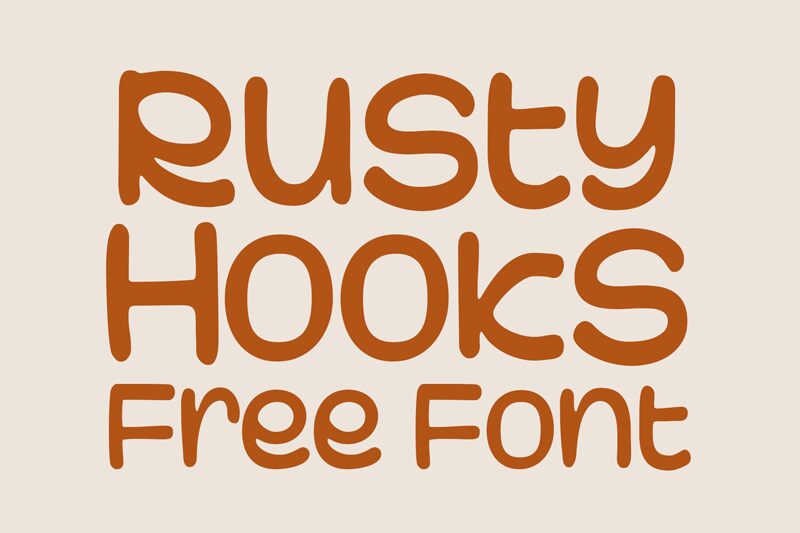
Rusty Hooks Regular
Rusty Hooks, crafted by the imaginative Niskala Huruf, is a semi-expanded display font that exudes charm and personality with its whimsical handwritten style. This playful typeface stands out with its delightful quirks, making it a perfect choice for designers looking to inject a touch of lightheartedness into their creative projects.
Whether it's for eye-catching branding, engaging advertising, or memorable packaging, Rusty Hooks adds a warm, personal feel that resonates with audiences. Its versatility shines through in both digital and print mediums, ensuring that your message not only stands out but also connects on a human level.